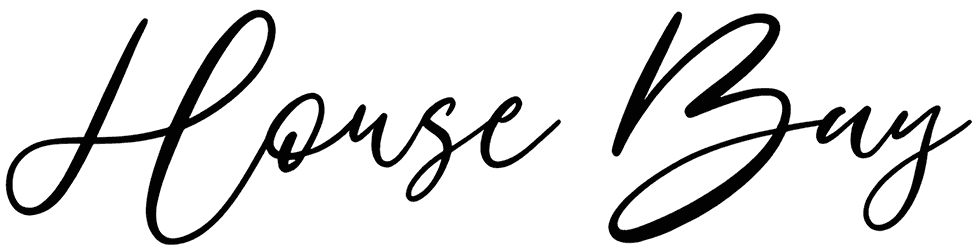
House Bay Font
For choosing the right font for Valentine’s cards, or wedding invitations, nothing can treat like a calligraphy font to spread out the romantic and warm sense. For offering a recommendation, House Bay is exactly what you look for, its gorgeous design would totally make up for the lack of numbers or punctuation marks.